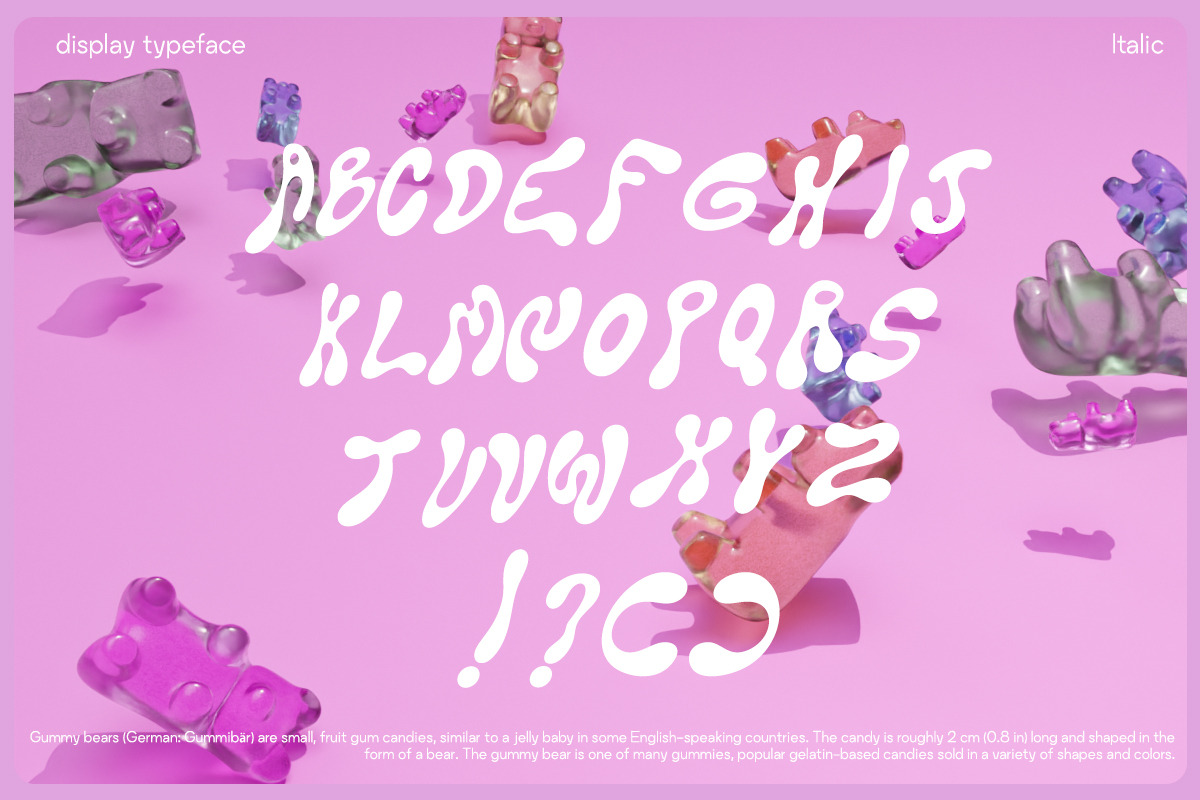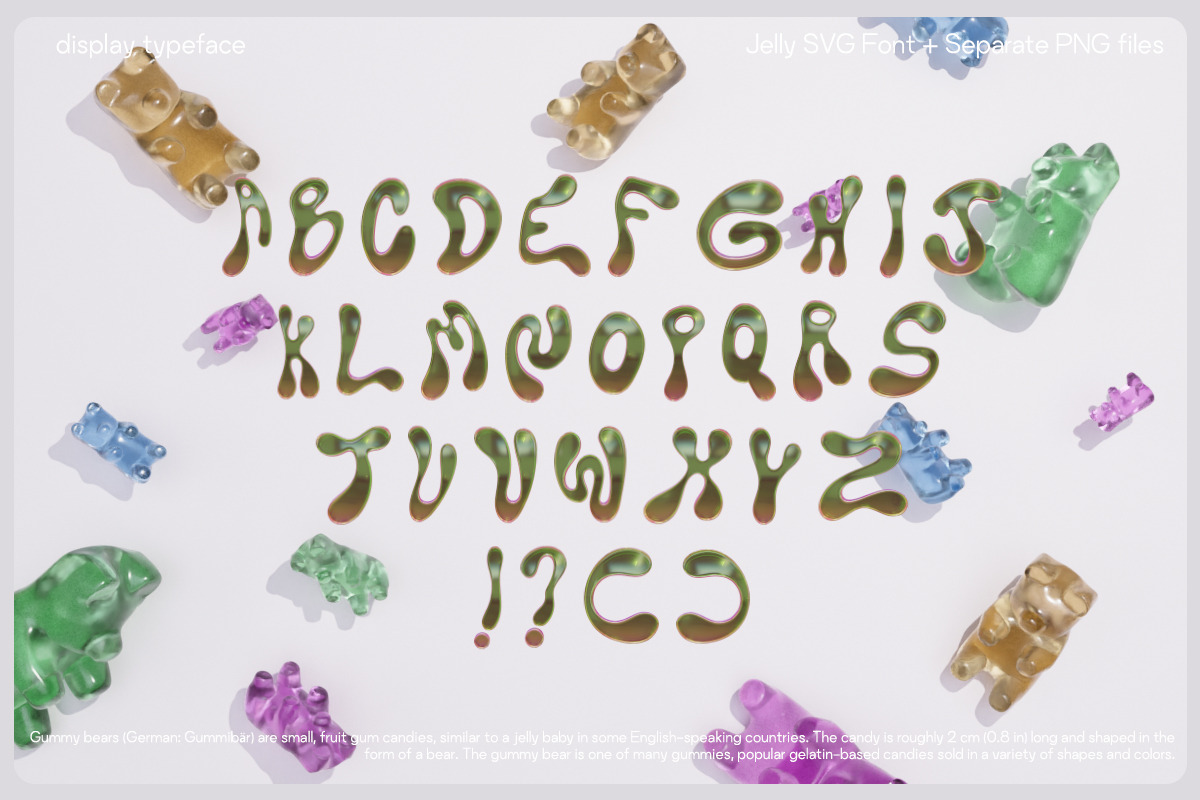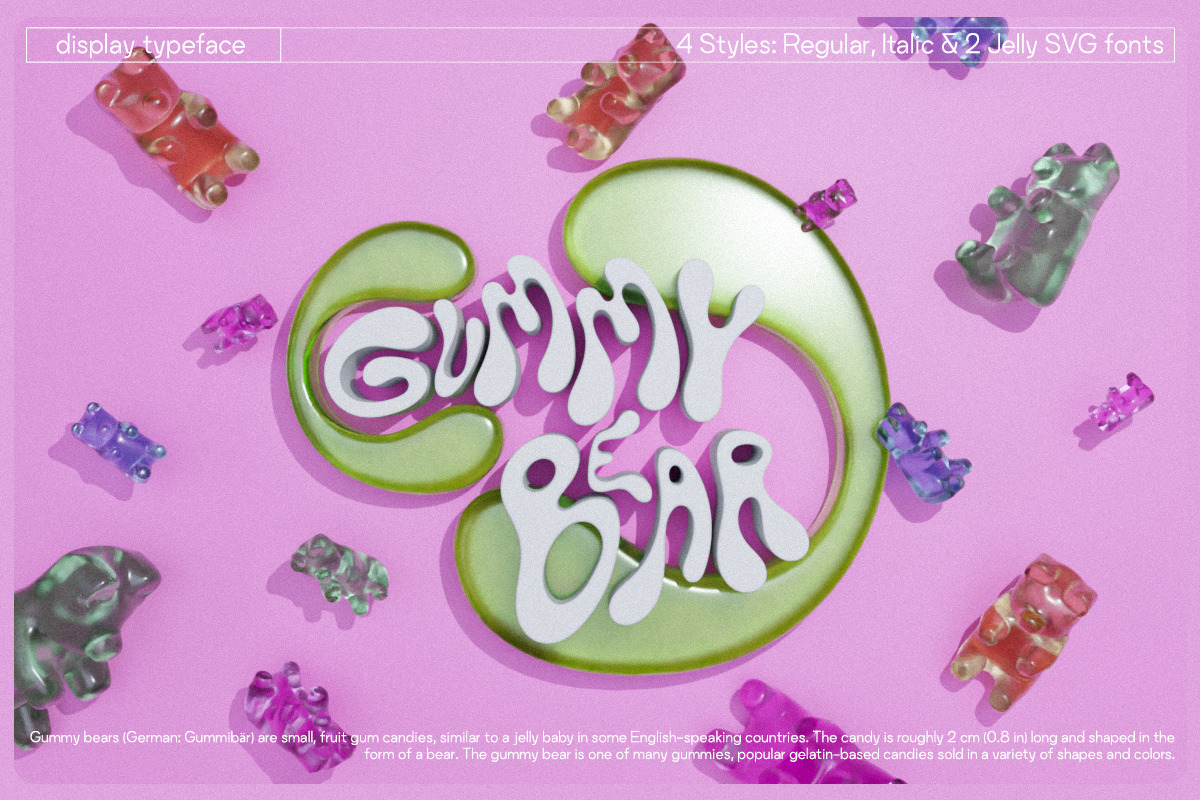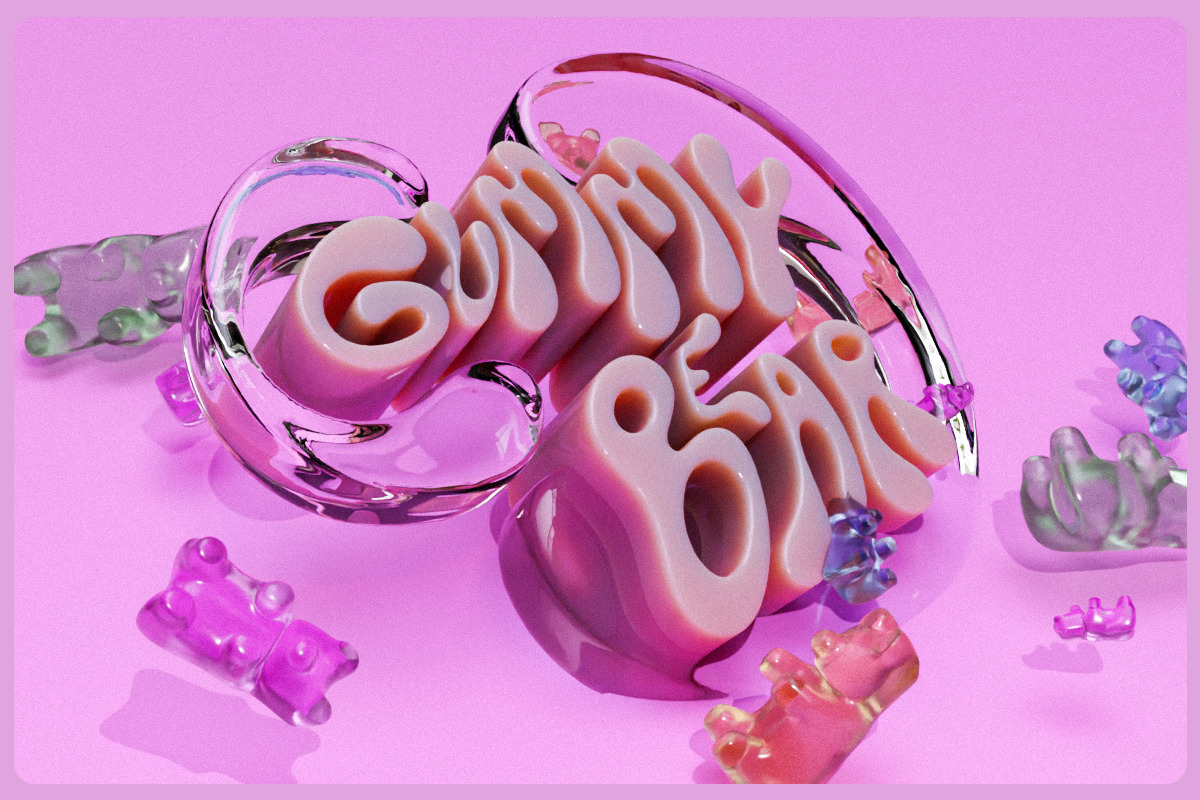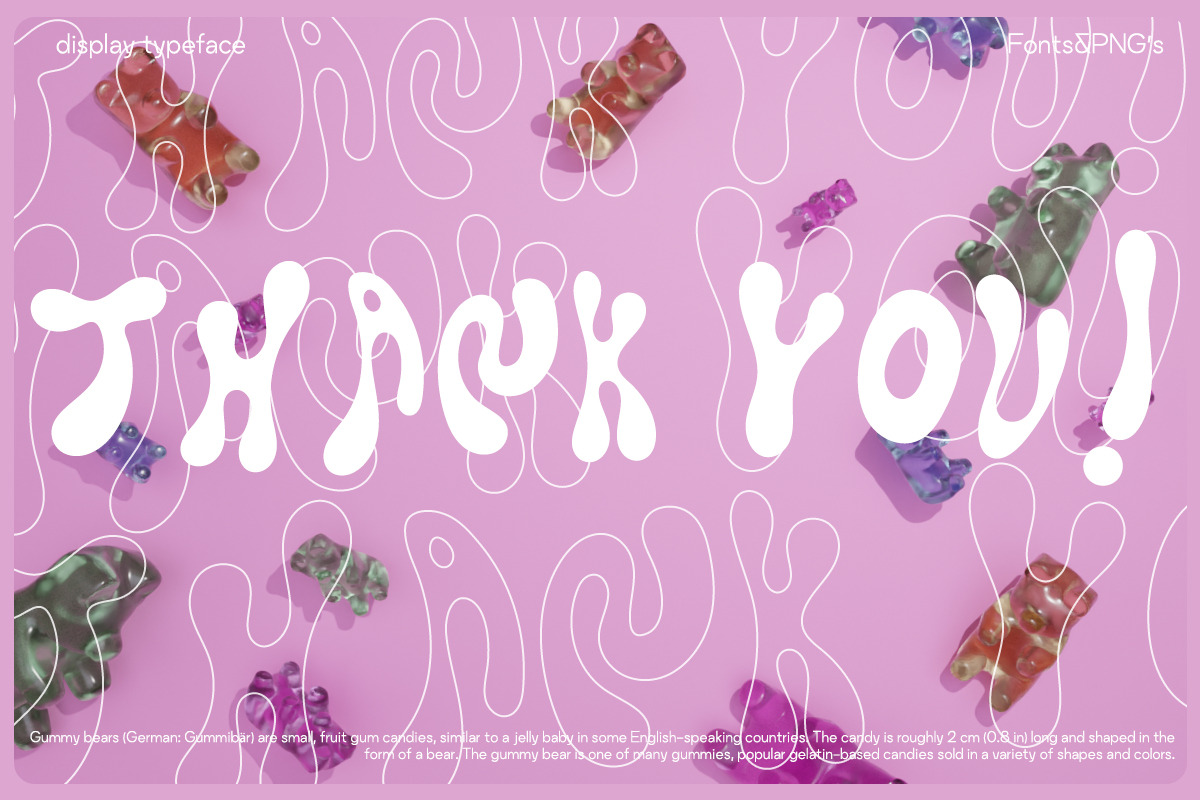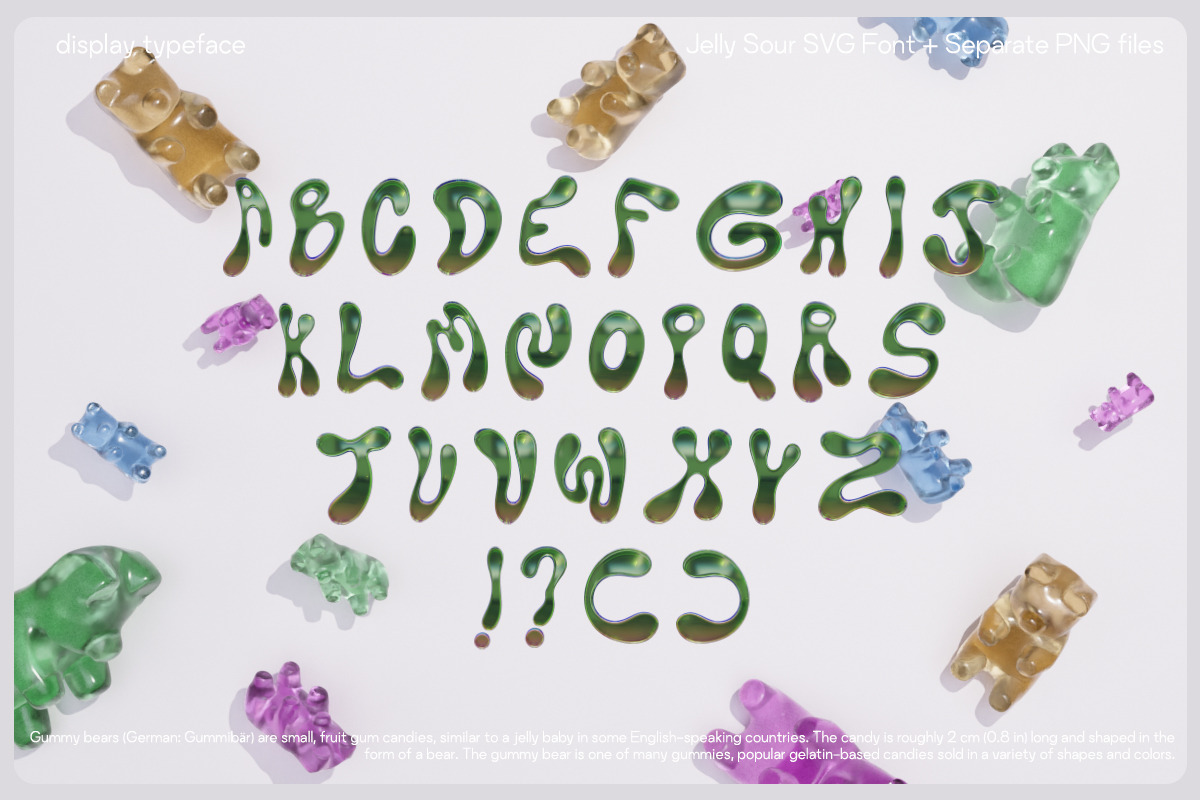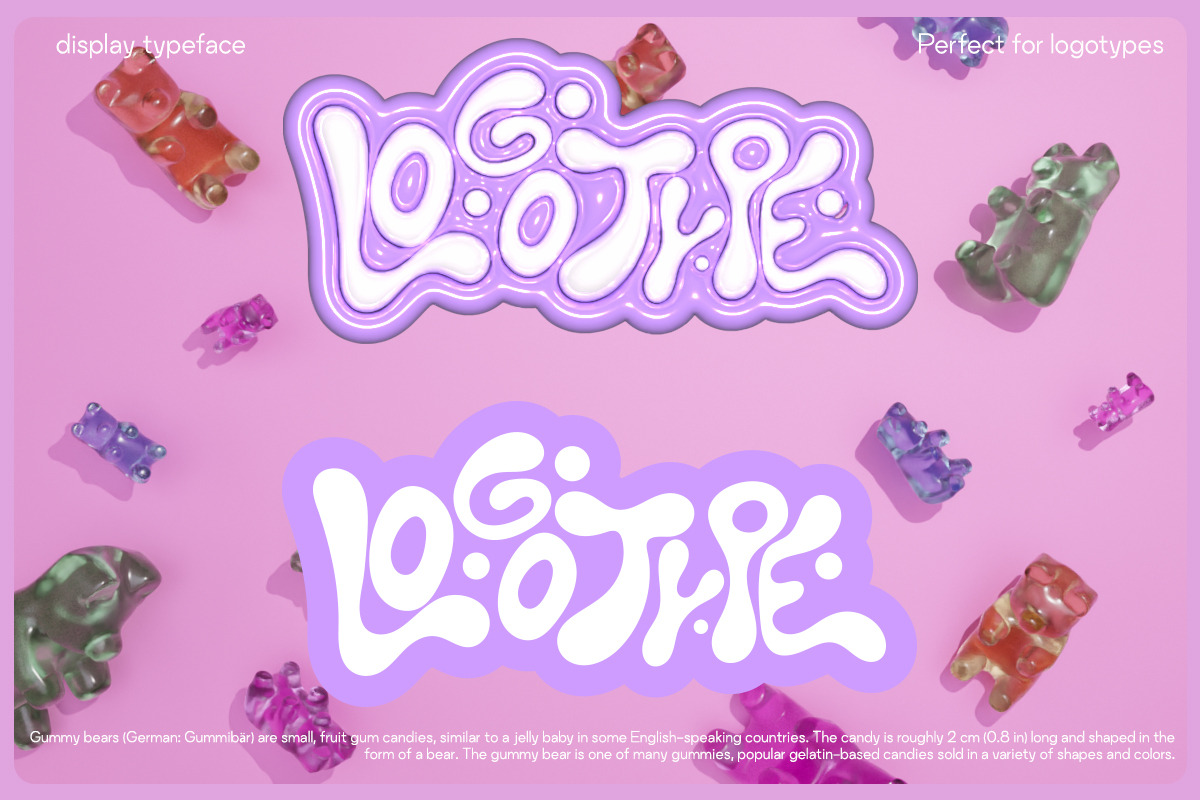
Gummy Bear - Font&SVG Typeface
Introducing "Gummy Bear"!
Font, a delightful and playful typeface that brings the sweetness to your designs!The font is perfect for adding a touch of whimsy and fun to any project. Each letter is crafted with a soft, rounded style reminiscent of the chewy texture of gummy bears, while maintaining clear legibility for easy reading. Whether you're designing a children's book, crafting a birthday invitation, or adding a pop of personality to your branding, Gummy Bear font is sure to sweeten up your creations. Embrace the charm of this unique typeface and let your creativity run wild with Gummy Bear font!